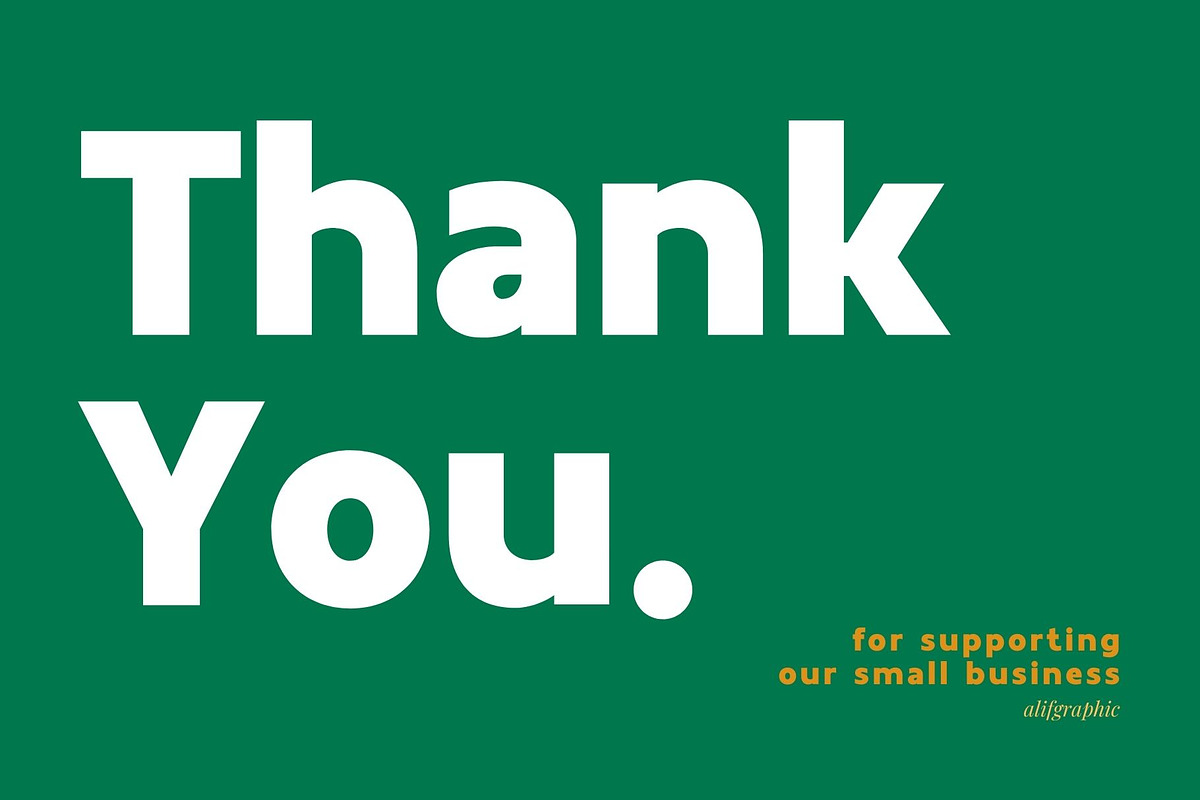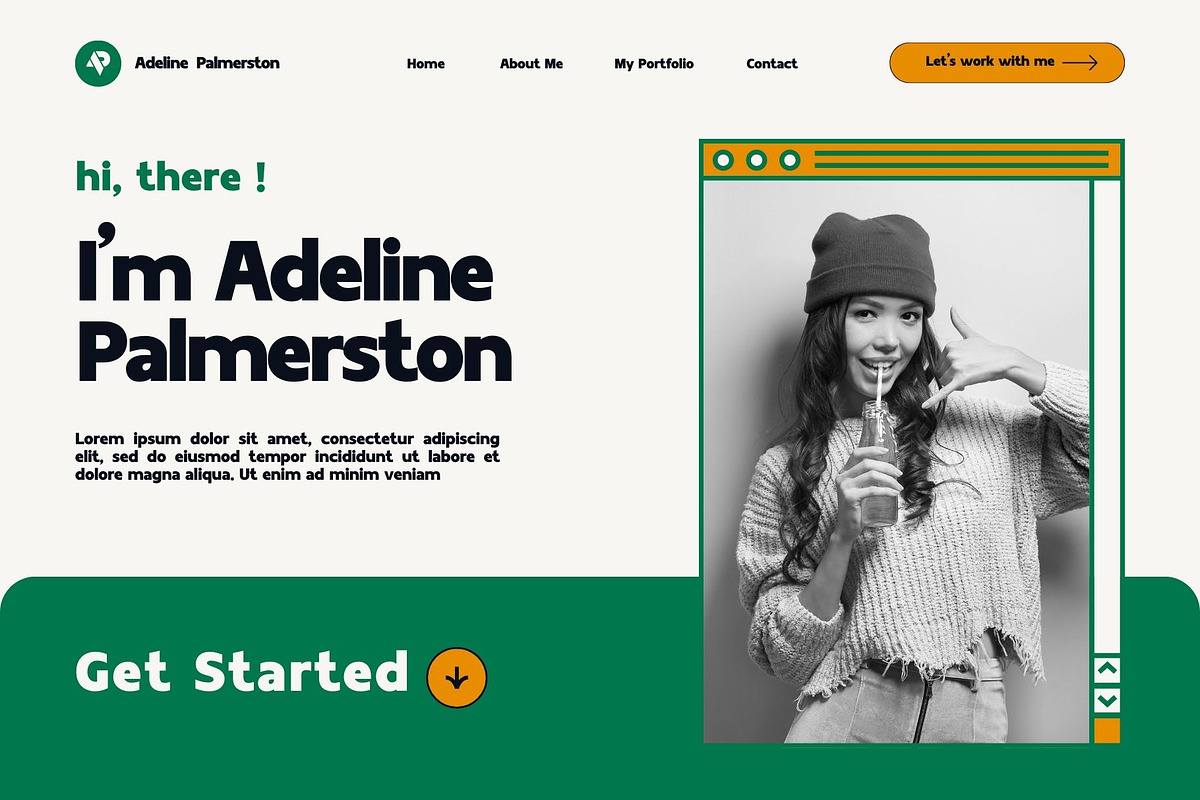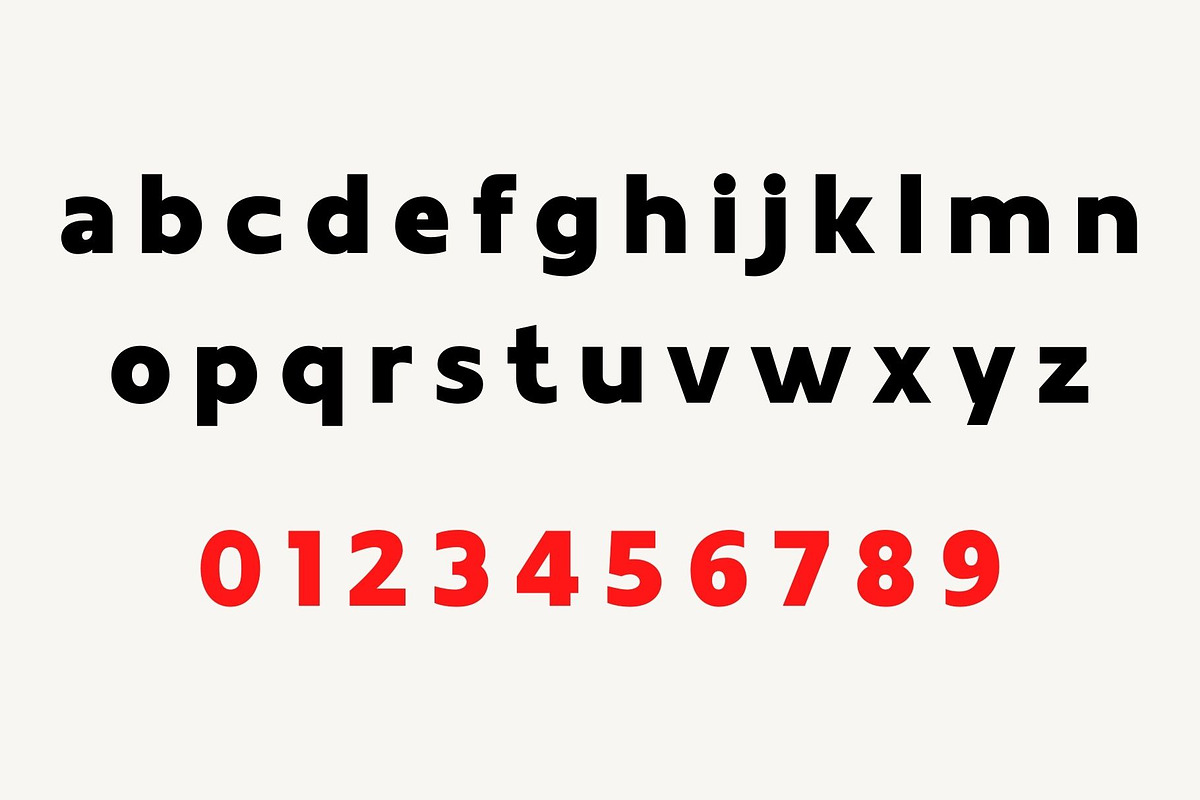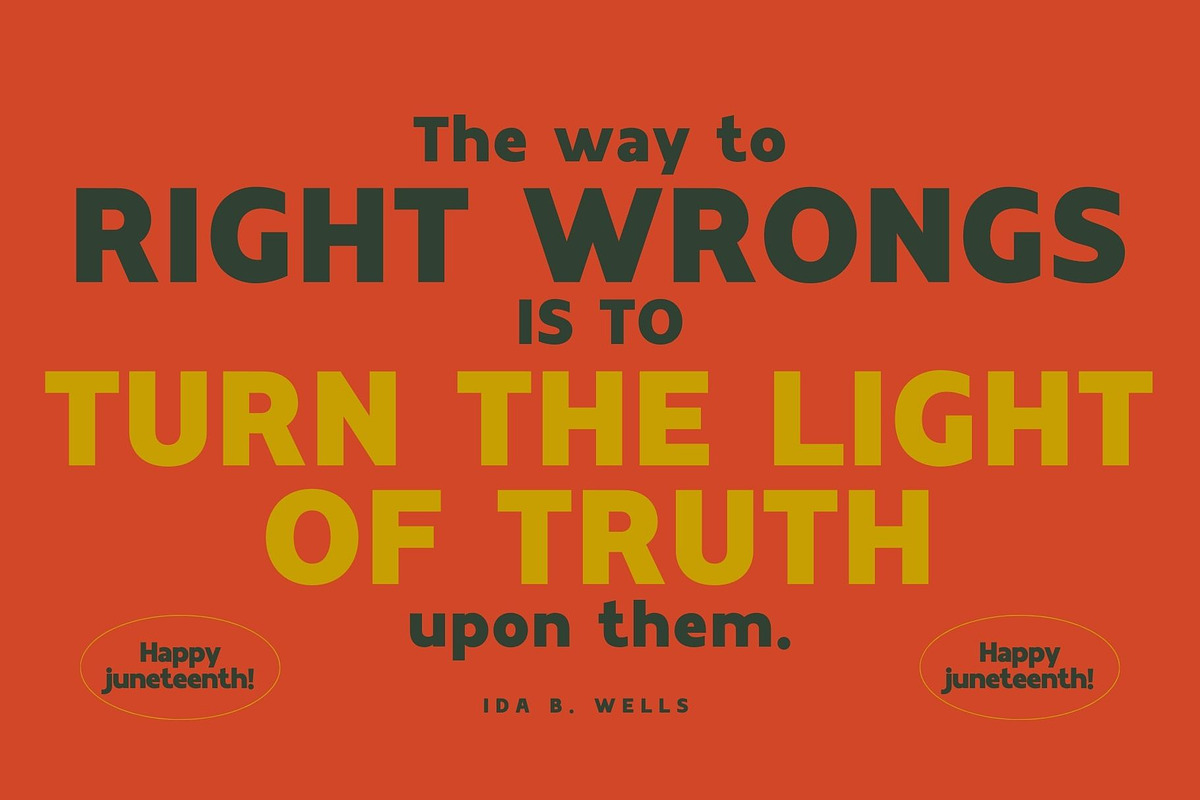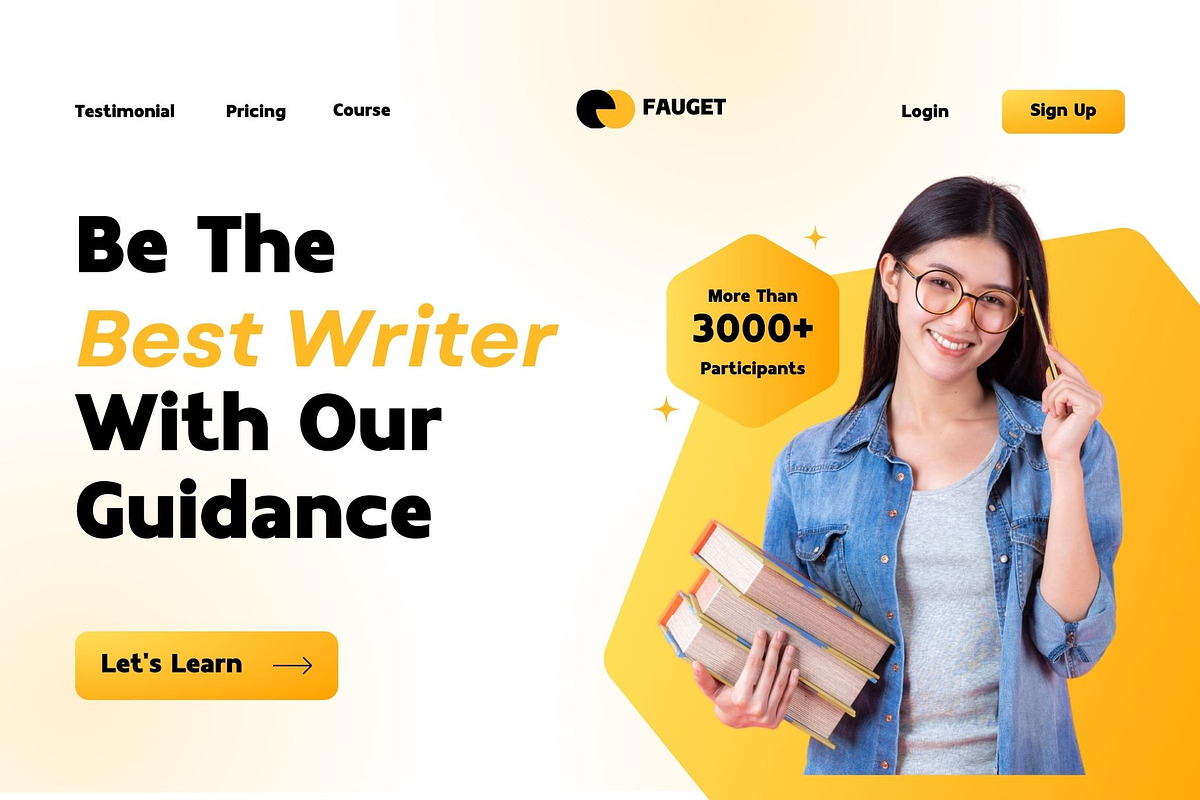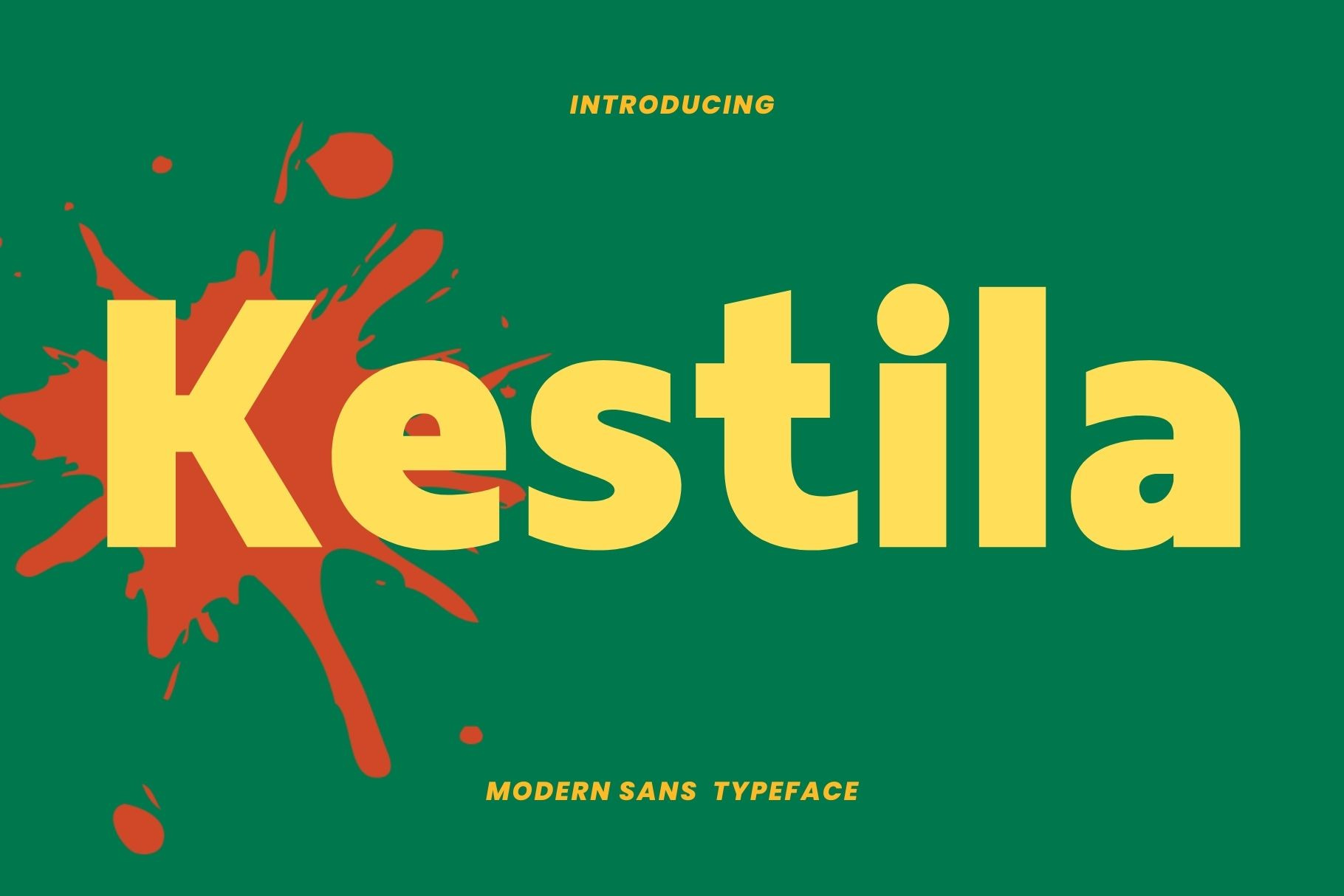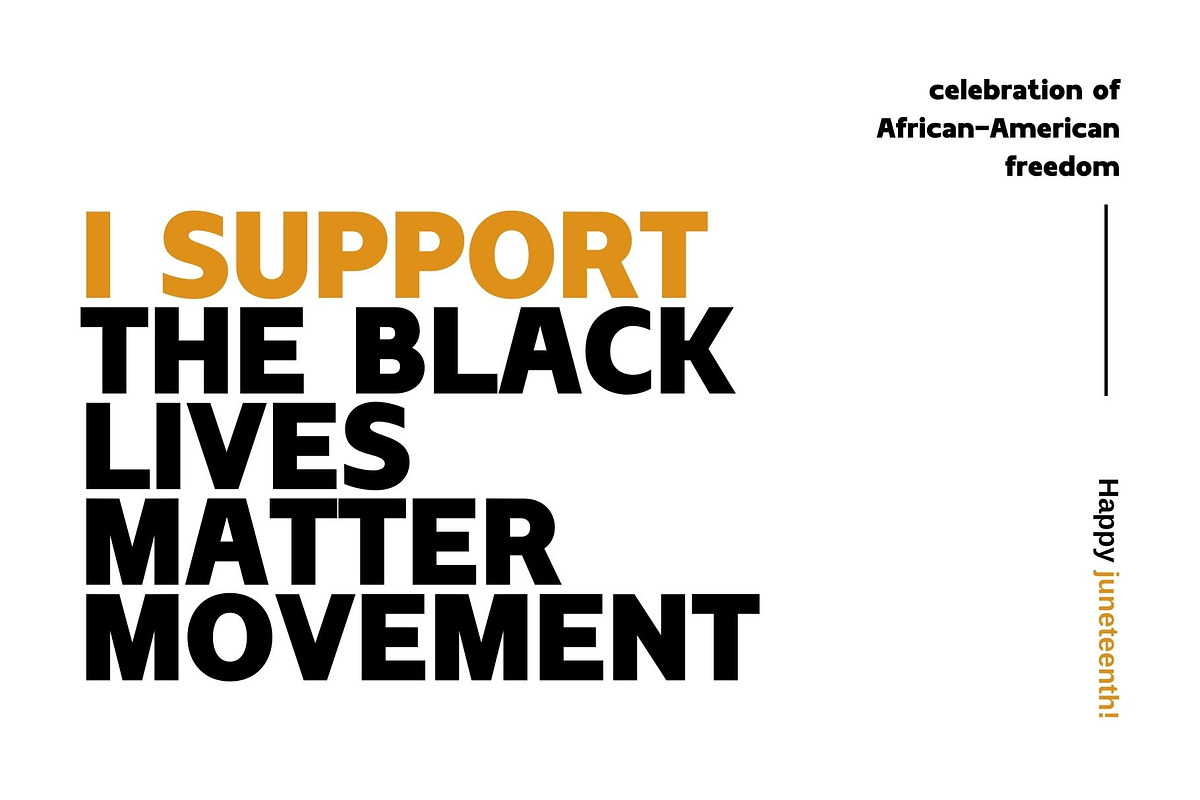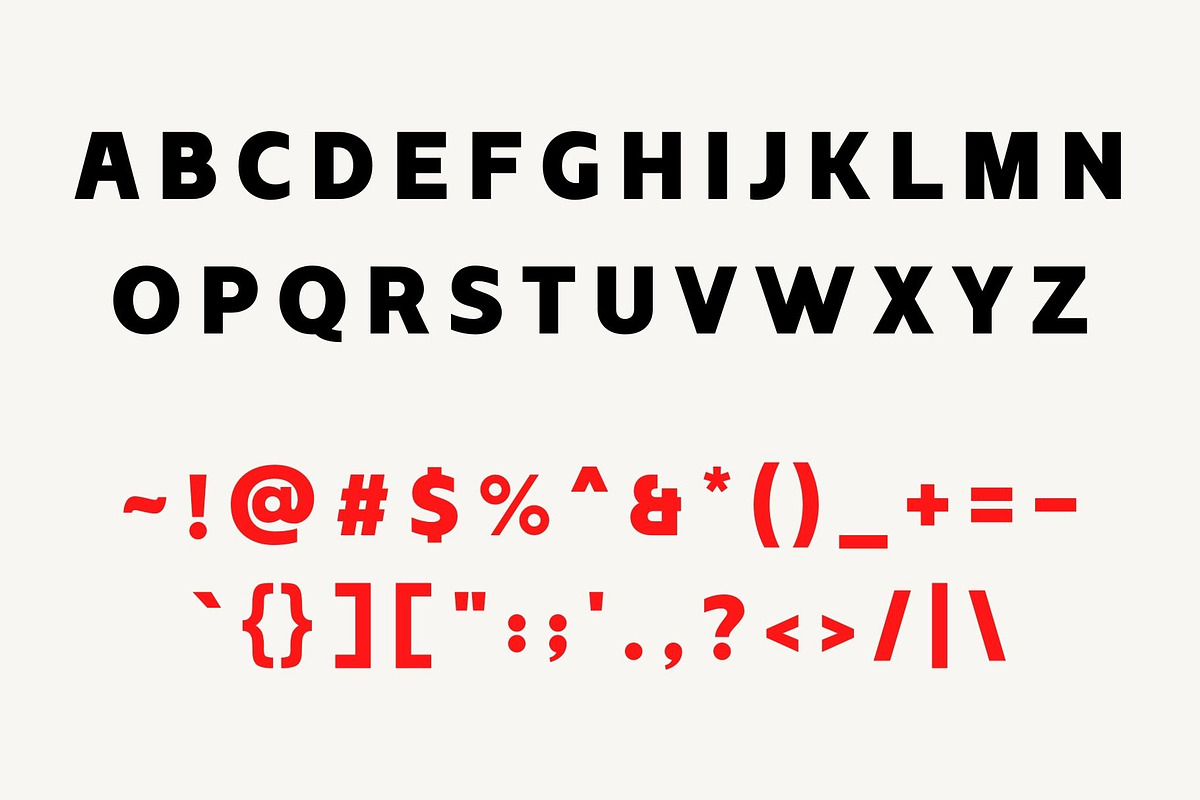
Kestila - Modern Sans Typeface
Introducing 'Kestila' Font:
An exquisite font series designed to elevate your creative projects. Immerse yourself in the allure of meticulously crafted letters that strike the perfect balance between modernity and elegance. Our commitment to precision shines through in the creation of each letter, prioritizing immaculate design to guarantee a flawless typographic expression.
Ideal for:
- Modern Designs
- Web Design Projects
- Advertising Campaigns
- Visual Identity Projects
- Social Media
- Ready for Creative Expression
- Immaculately Crafted Letters